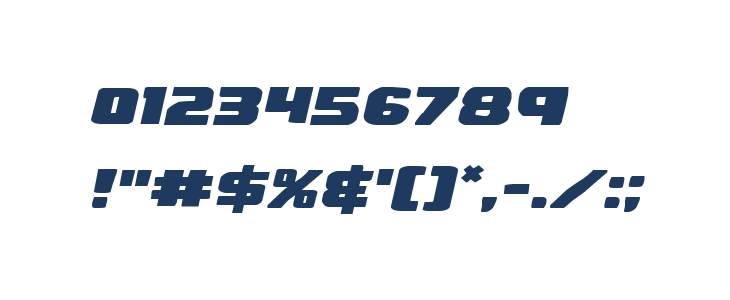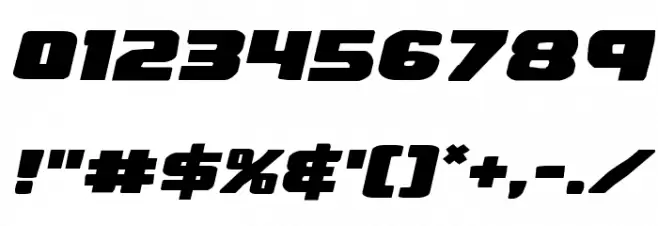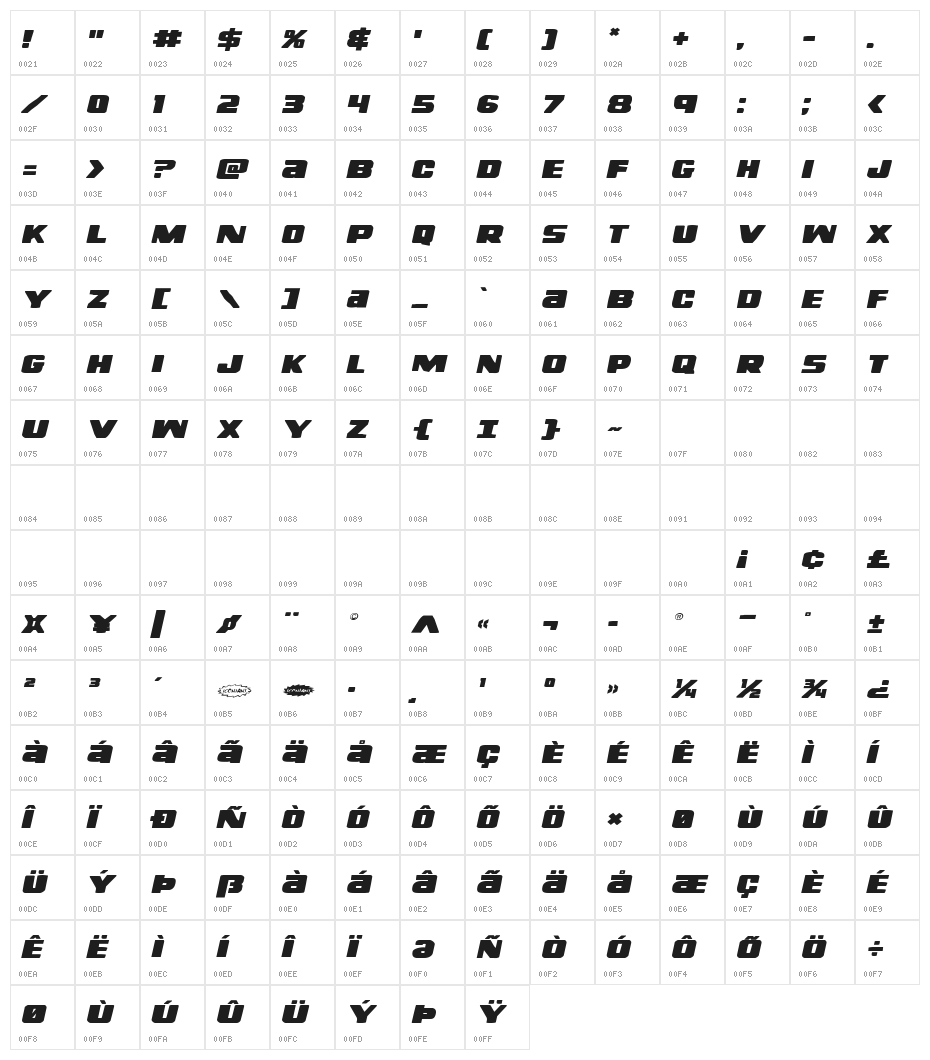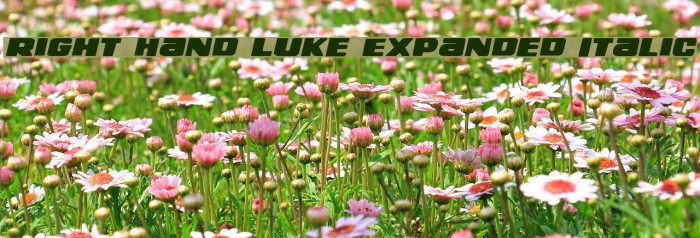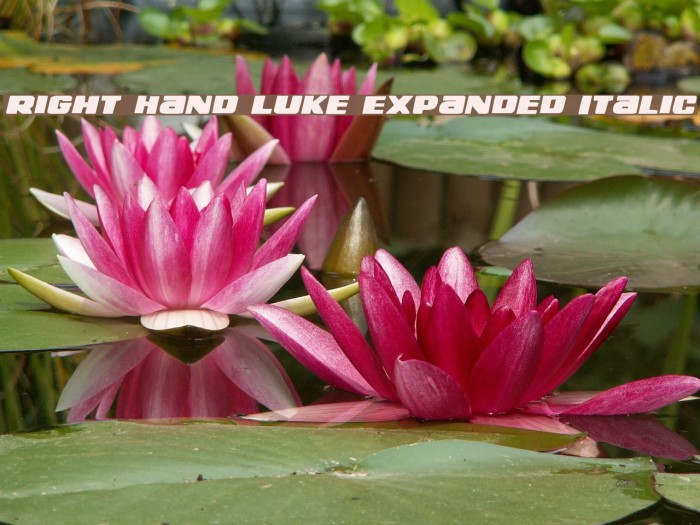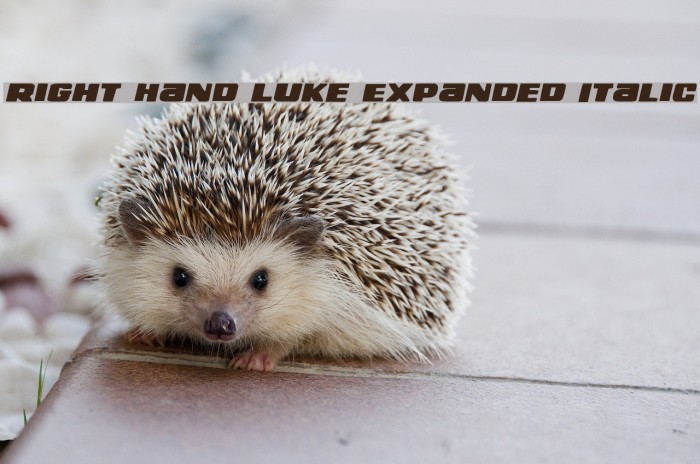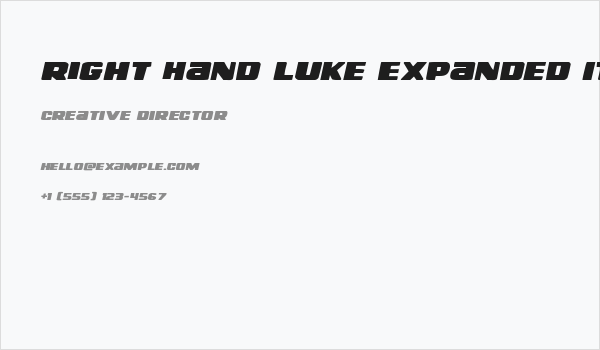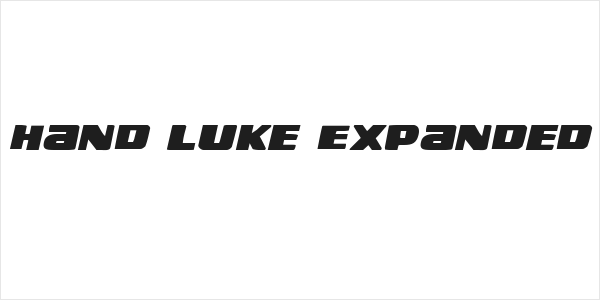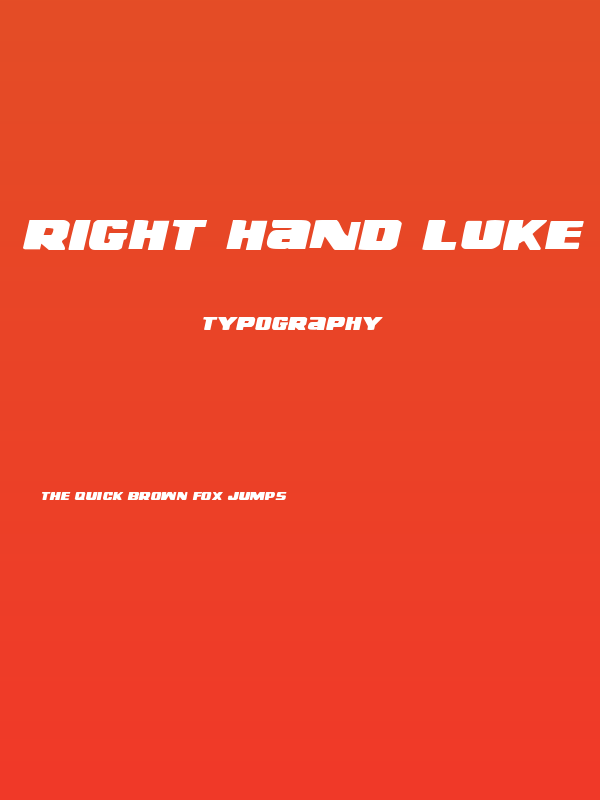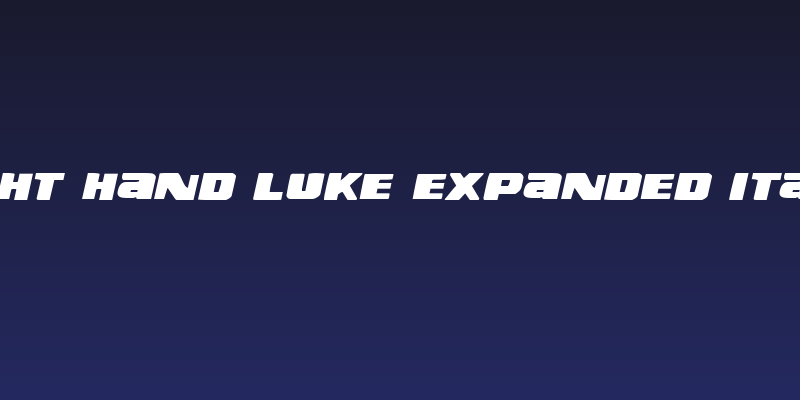
Right Hand Luke Expanded Italic Font
Right Hand Luke Expanded Italic Description
This font features a bold, italicized style with an expanded width, giving it a strong and dynamic appearance. The characters are designed with a modern flair, incorporating sharp angles and a slightly futuristic aesthetic. The uppercase and lowercase letters maintain a consistent style, with a noticeable slant that adds to the font's energetic feel. The numerals and special characters are crafted to match the overall boldness and angularity, ensuring a cohesive look across all glyphs. This font's design is ideal for making a statement, with its high contrast and wide character spacing enhancing readability and impact.
| Proposed Projects | Ideal for sports branding, dynamic posters, video game titles, and futuristic designs. |